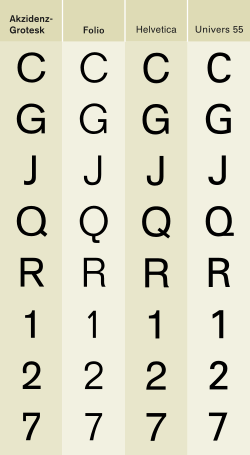
Folio (typeface)
| Category | sans-serif |
|---|---|
| Classification | Neo-grotesque |
| Designer(s) | Konrad Bauer and Walter Baum |
| Foundry | Bauer Type Foundry |
| Date released | 1957 |
Folio is a realist sans-serif typeface designed by Konrad Bauer and Walter Baum in 1957 for the Bauer Type Foundry (German: Bauersche Gießerei).[1] Bauer licensed the design to Fonderie Typographique Française for sale in France under the name Caravelle.
Folio is considered part of the International Typographic Style, with Helvetica and Univers also released at the same time. All three are modeled after Akzidenz-Grotesk. However, Folio more closely follows the original model than the other two, which have larger x-heights.[1] The typeface experienced moderate success in the United States. The typeface family was extended in 1963, adding an Extra Bold weight and a Bold Condensed width.
The cold type version was issued by Hell AG.
Usages
Lowe's uses various weights of Folio on all in-store signage.
Little Caesars also uses various weights for some restaurant signage.
Universal Studios used Folio Bold Extended for TV-show covers from the 60's and 70's.
Tempe, Arizona uses Folio Medium under their seal in street signs.